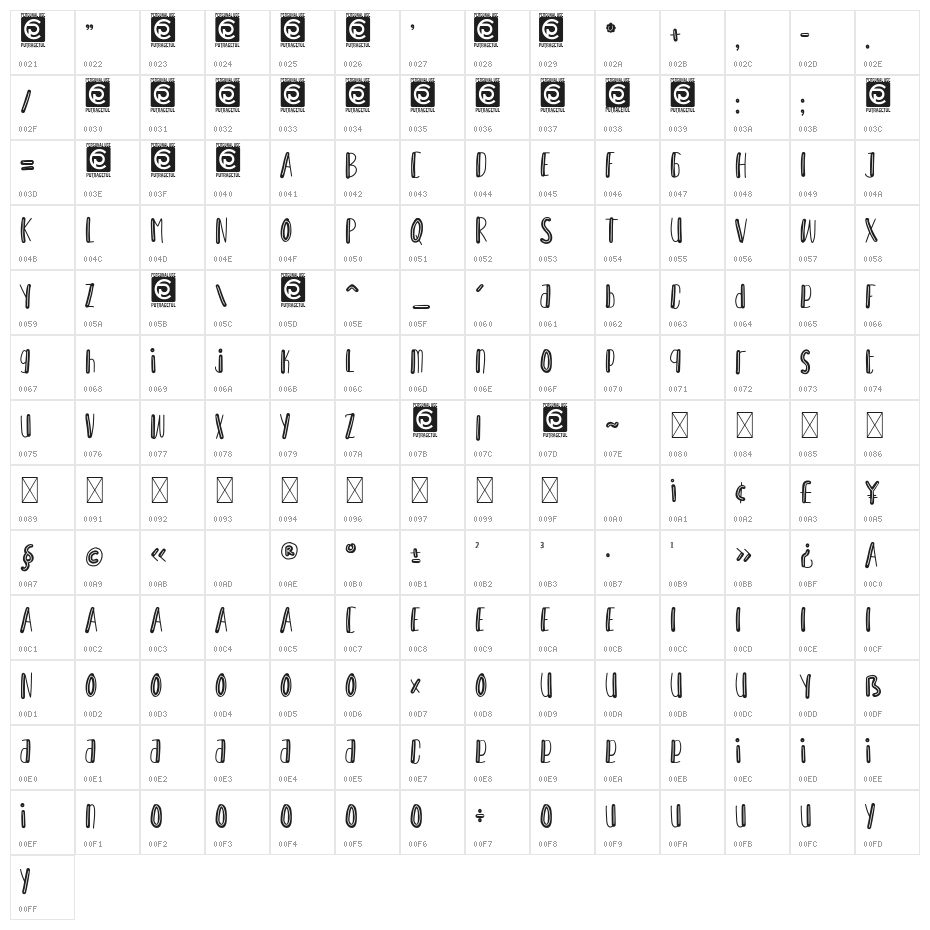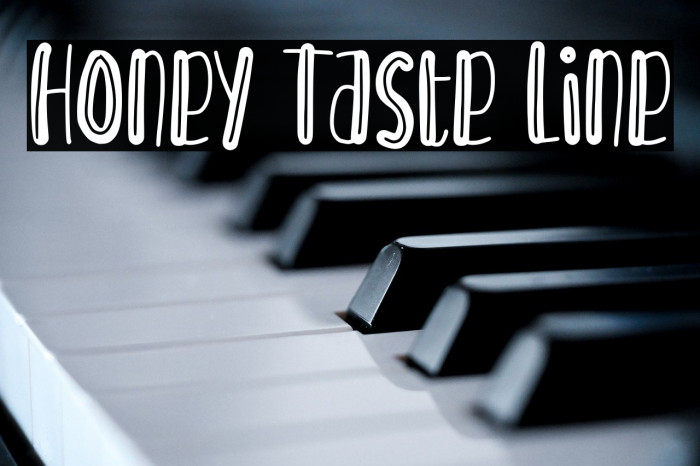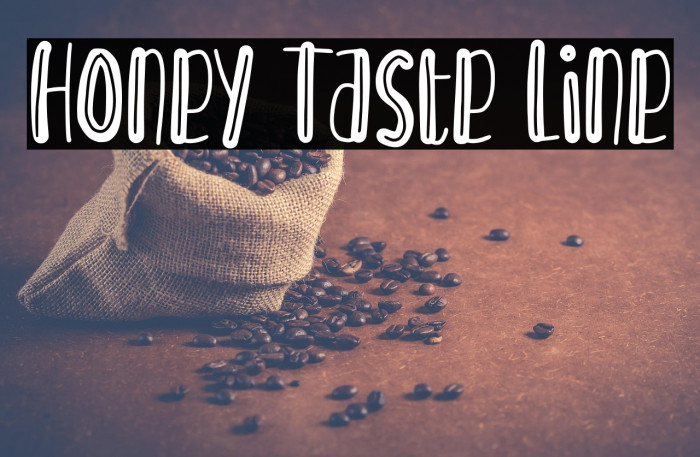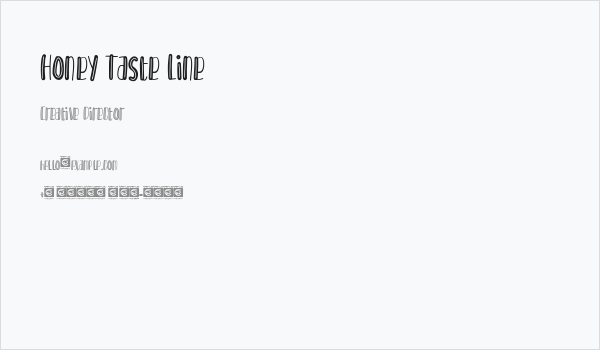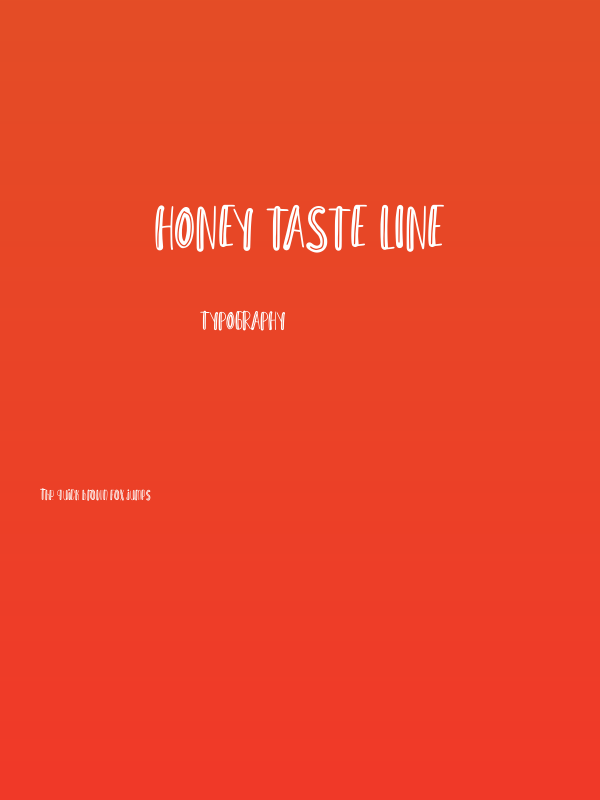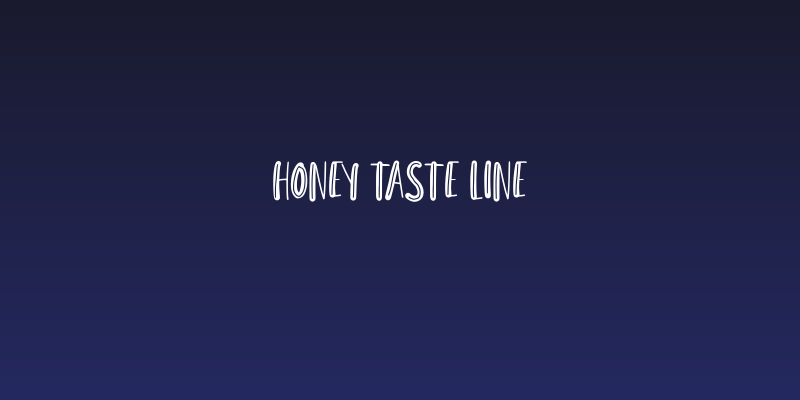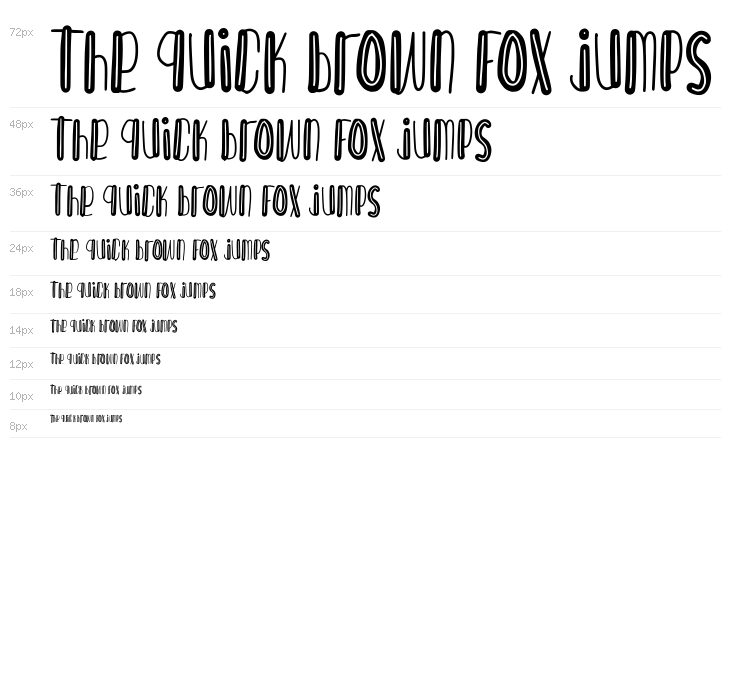
Honey Taste Line Font
Honey Taste Line Description
This font features a playful and whimsical style with elongated, flowing letterforms that give it a hand-drawn appearance. The characters are tall and narrow, with a consistent stroke width that adds to its casual and approachable feel. The uppercase and lowercase letters maintain a cohesive look, while the numbers and special characters complement the overall design. The font's unique style makes it suitable for creative projects that require a touch of personality and charm.
| Proposed Projects | Ideal for greeting cards, children's books, playful branding, and creative posters. |